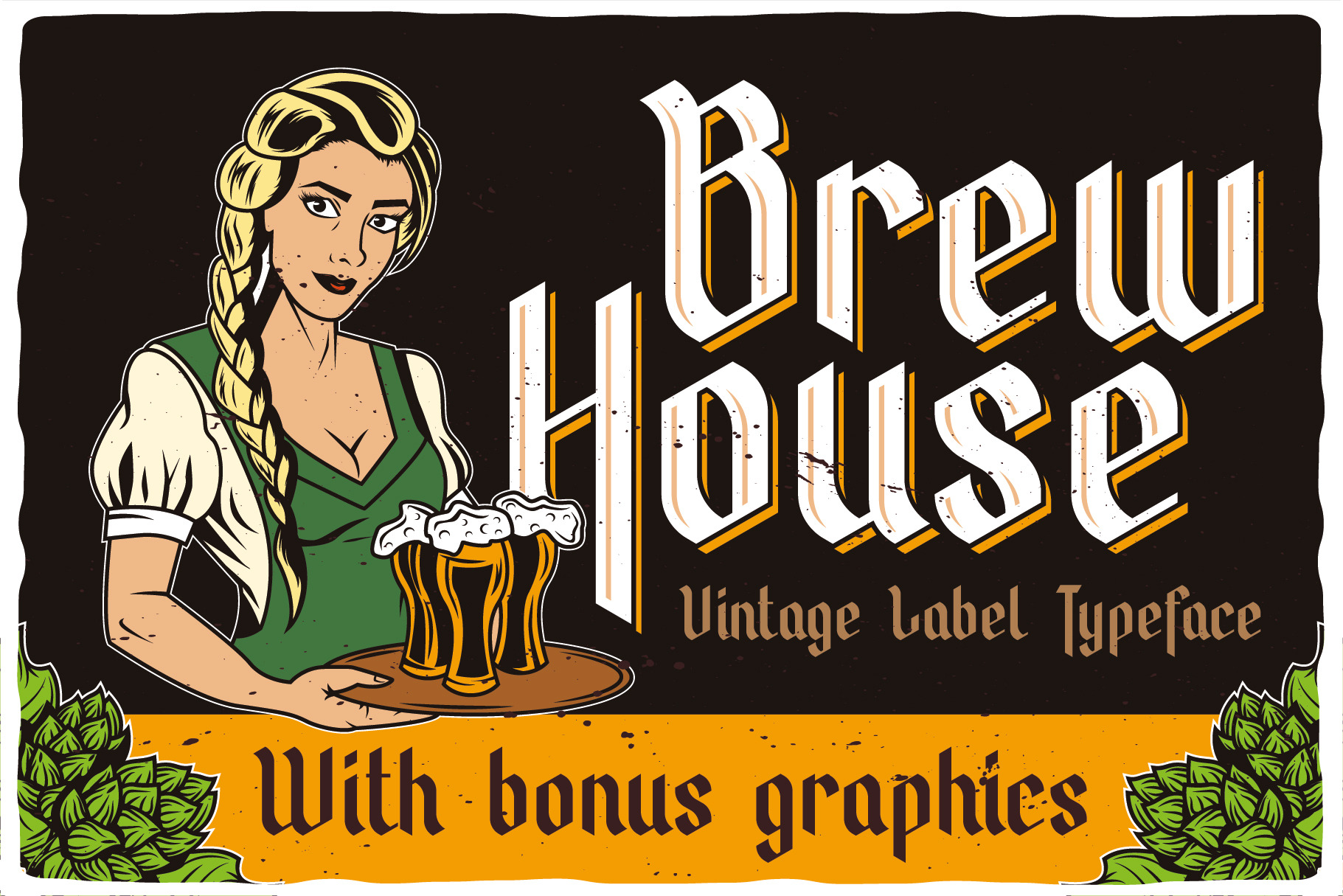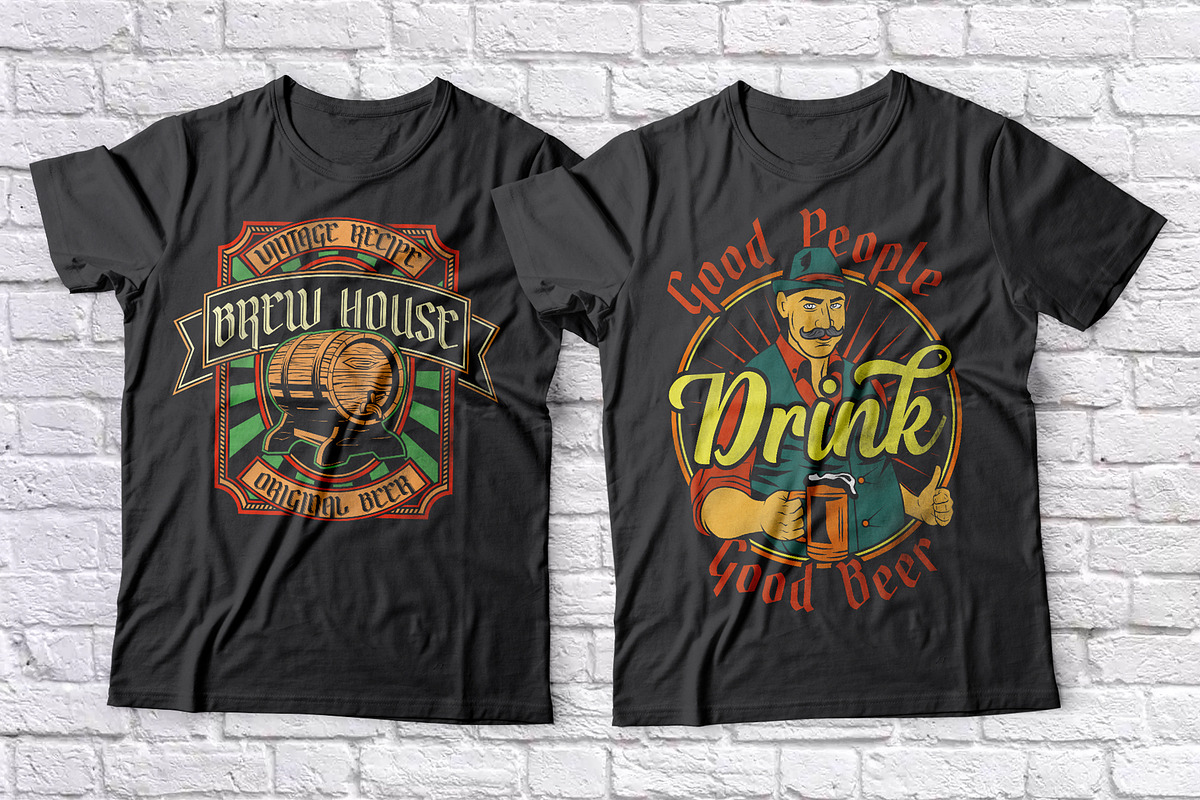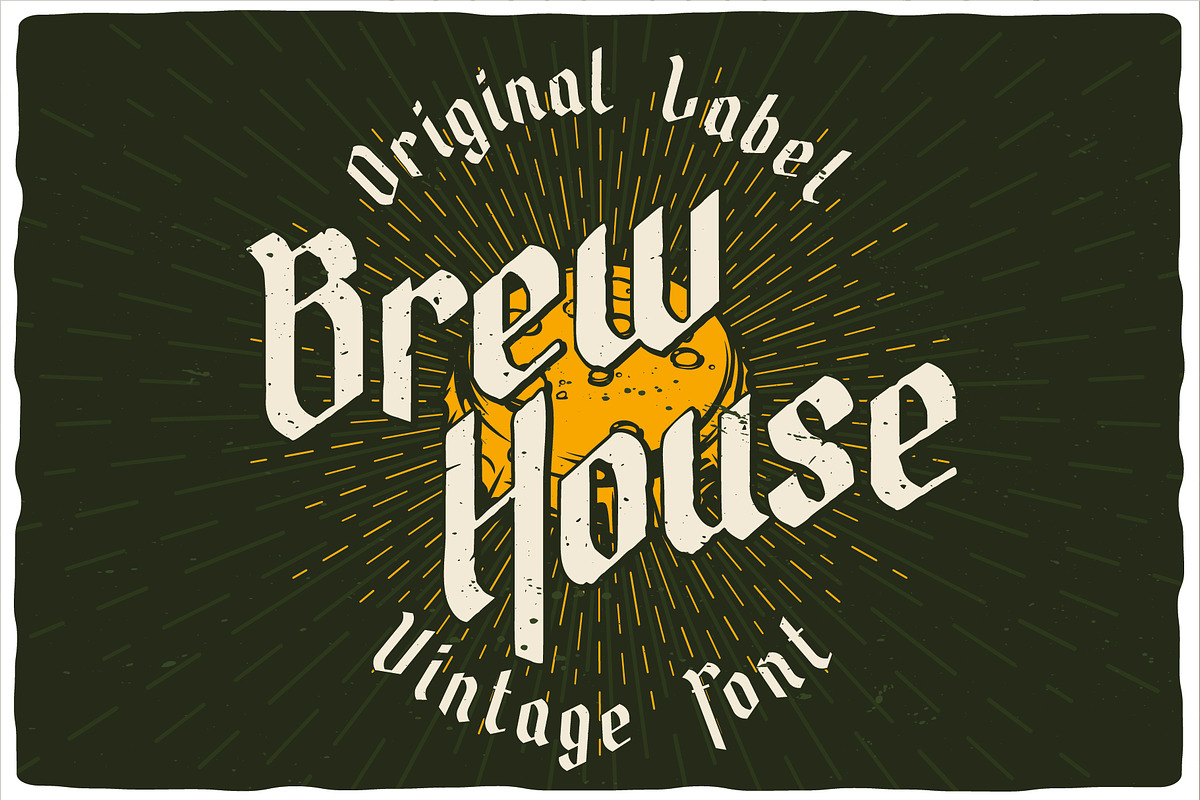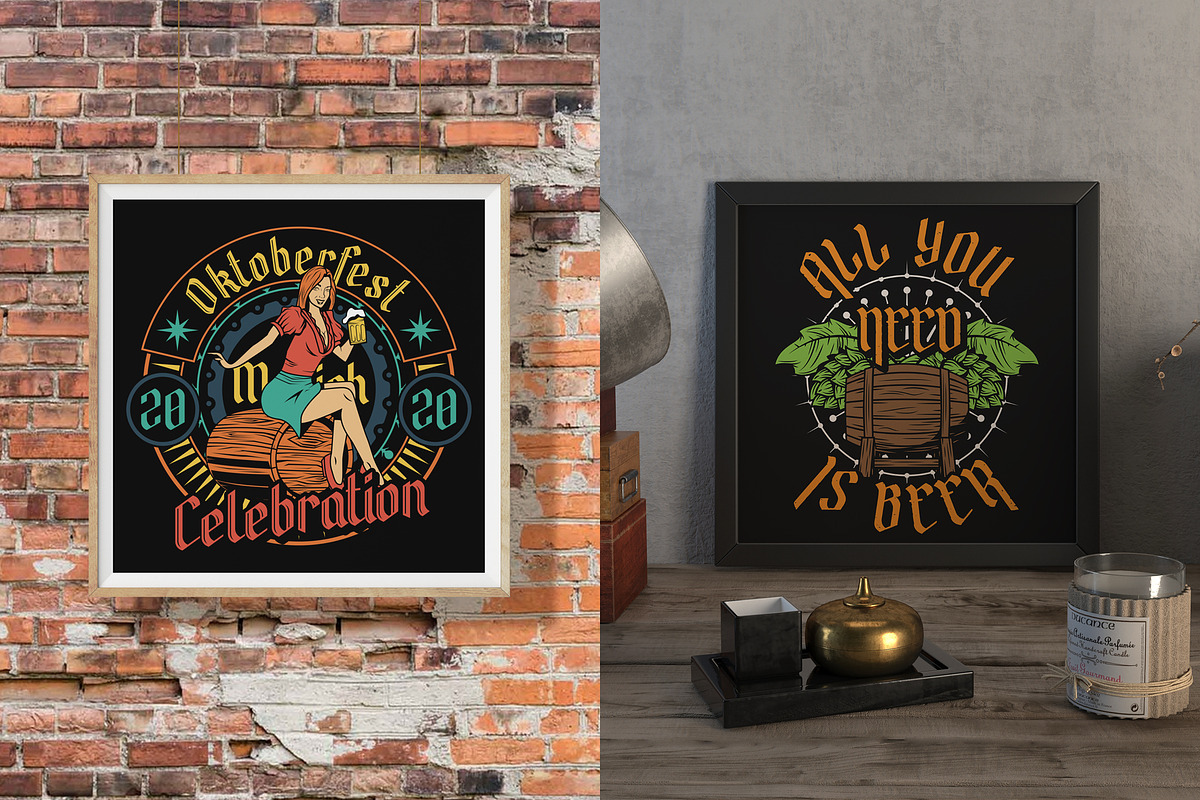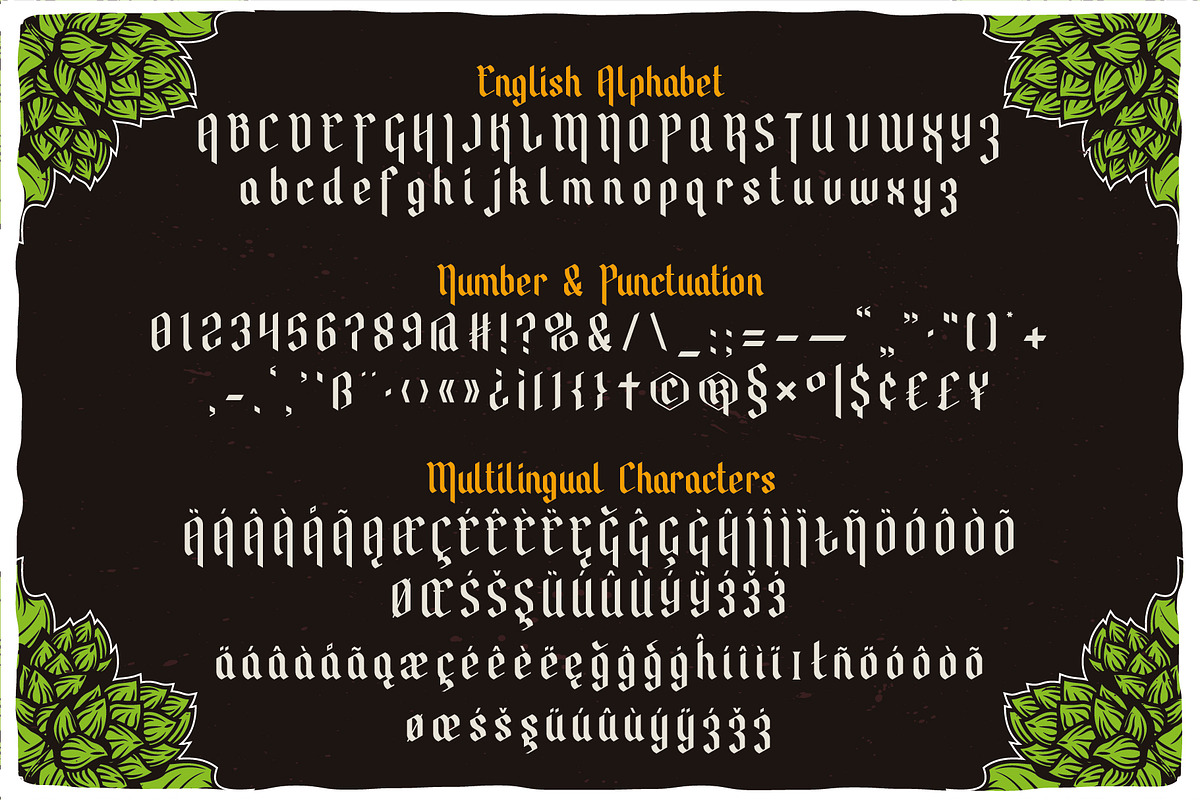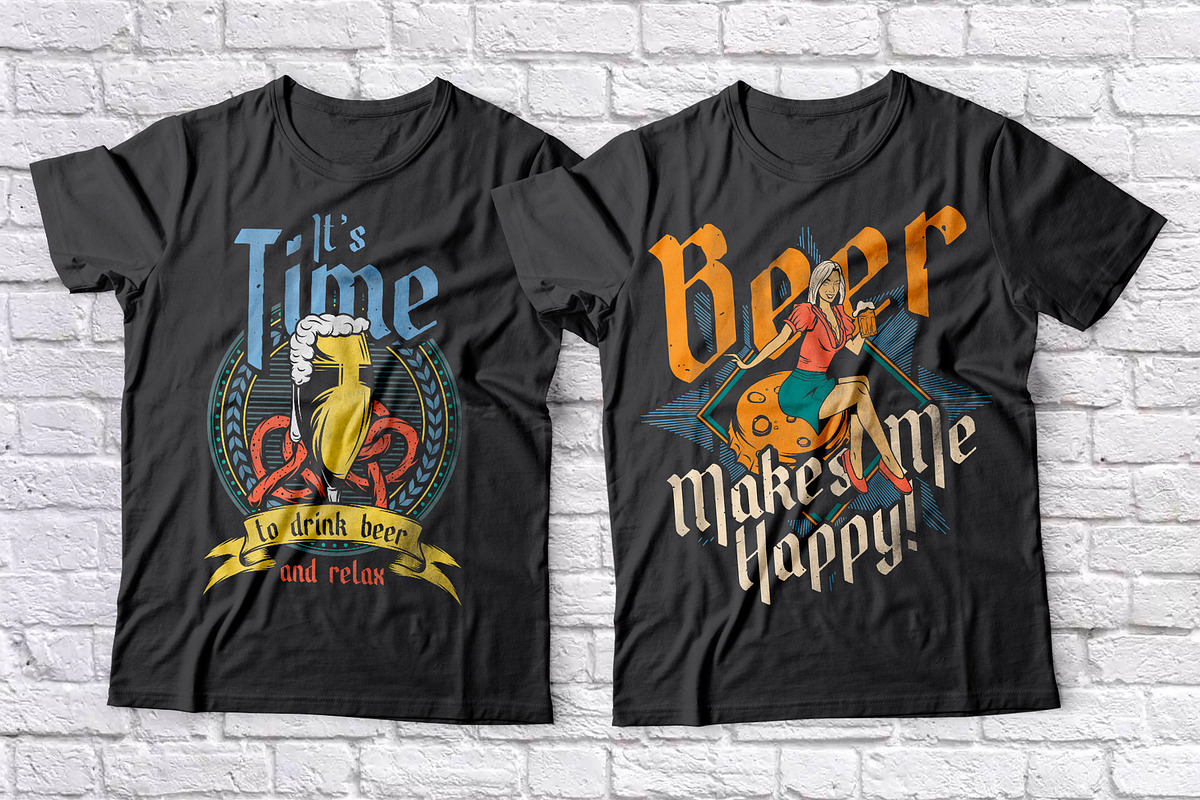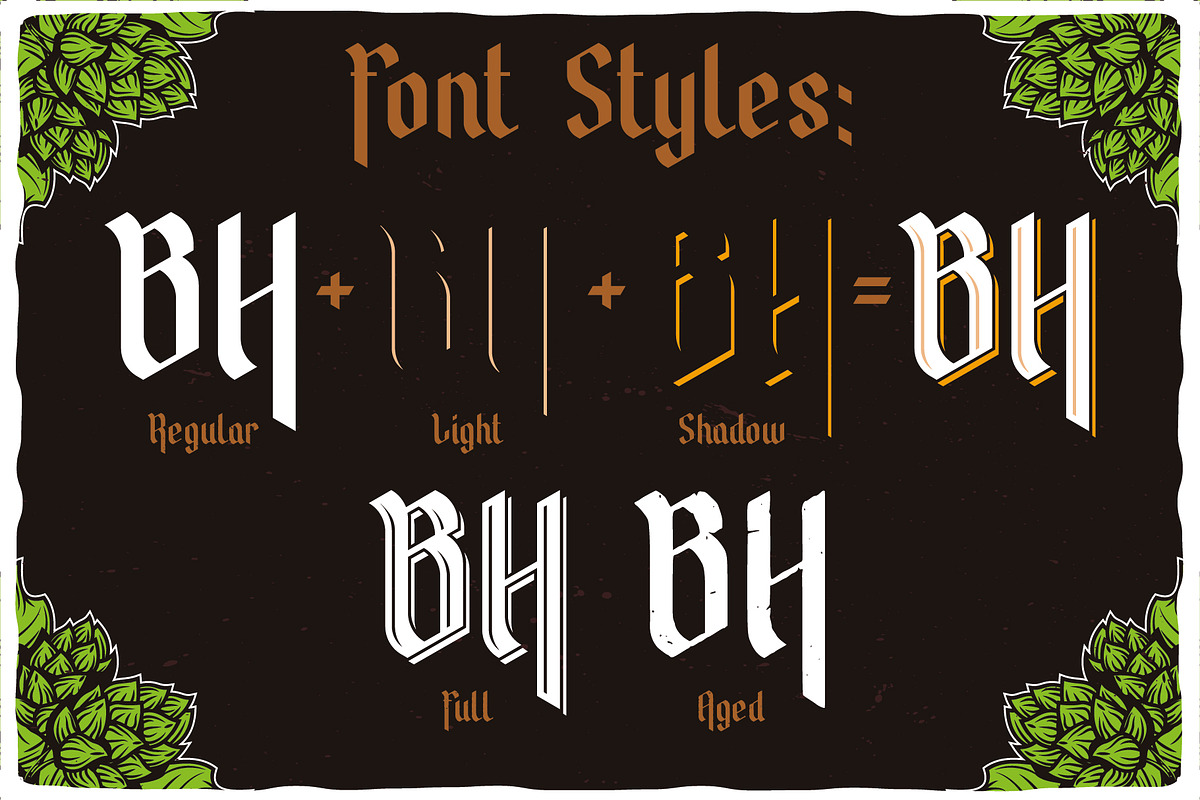
Brew House Label Font
Introducing a vintage look label font named "Brew House". All available characters you can see at the screenshot. This font have 5 basic styles - Regular, Full, Shadow, Light and Aged. This font will good viewed on any retro design like poster, t-shirt, label, logo etc.
- A lot of additional characters and multilingual support
For using effect layer:
- Type your text in Regular.
- Copy that and paste at the same position.
- Change the style to Light or Shadow. After that you can choose different colors for Regular font and Shadow or Light effects.